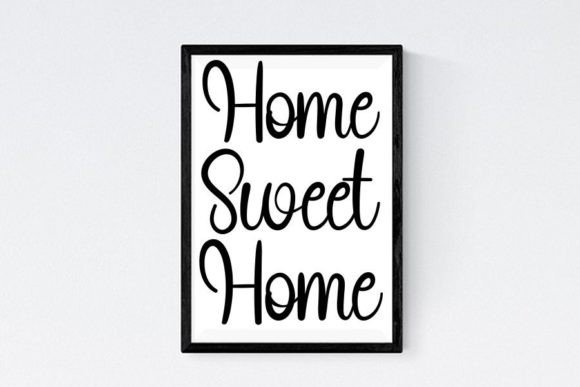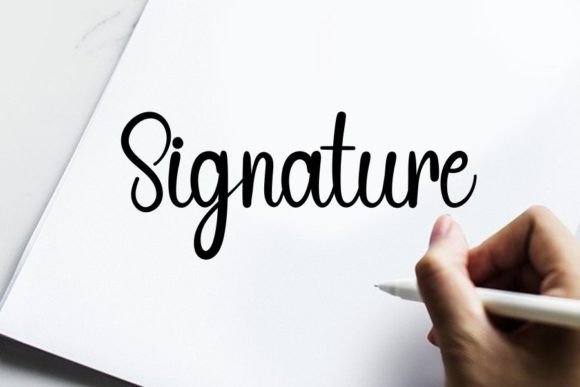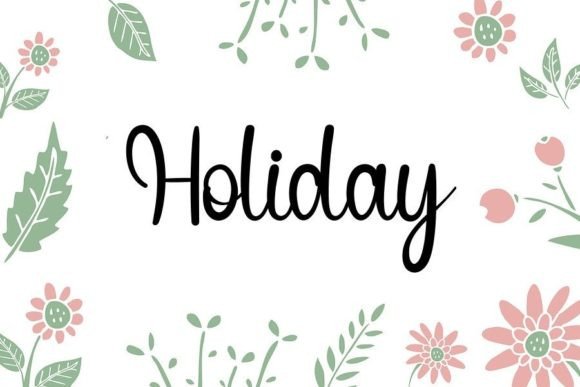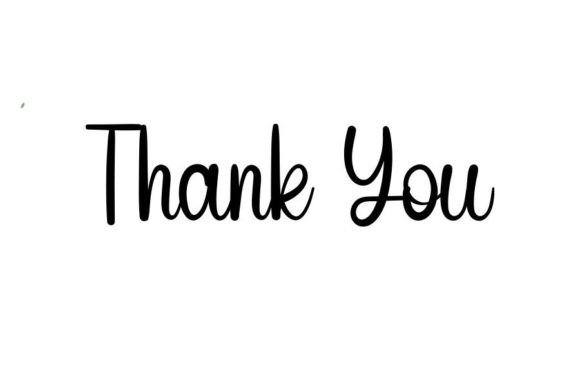
Salmon Font
About Salmon Font
“Salmon” is a stylish and incredibly elegant script font that adds a touch of sophistication to a variety of design projects. Its refined and graceful appearance makes it particularly stunning on wedding invitations, thank you cards, quotes, greeting cards, logos, business cards, and any other design that requires a handwritten touch.
The stylish and elegant qualities of “Salmon” make it well-suited for projects that demand a high level of visual appeal and a sense of refinement. Picture this font on a wedding invitation, where its script enhances the romantic and elegant atmosphere of the celebration. Visualize it on a business card, adding a sophisticated touch to your professional branding with its beautifully crafted handwritten style.
The versatility of “Salmon” allows it to seamlessly adapt to different design contexts, making it a valuable asset for a range of creative projects. Its handwritten charm brings a personal and unique element to your designs, leaving a lasting impression on your audience.
As you integrate “Salmon” into your design projects, let its stylish and elegant script be the key element that elevates your work. Whether you’re working on invitations, branding materials, or any other design that requires a touch of sophistication, “Salmon” invites you to infuse your projects with its delightful and refined handwritten style.